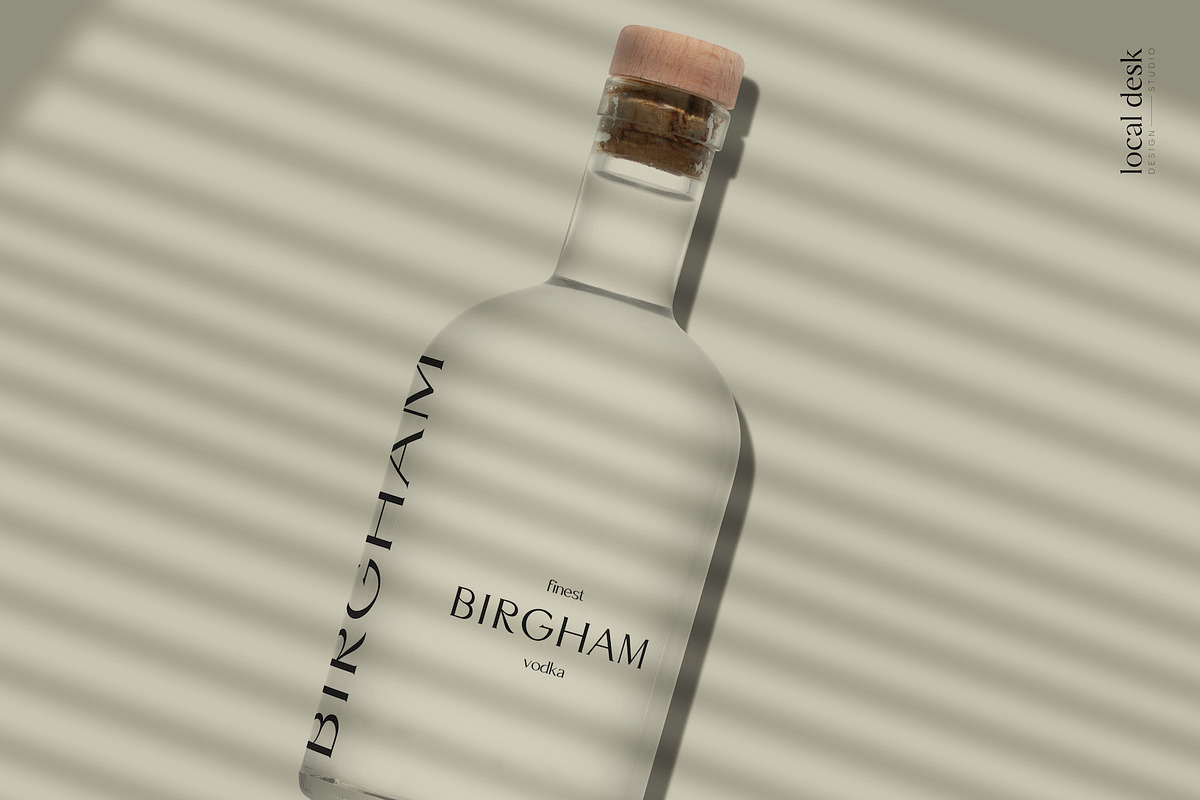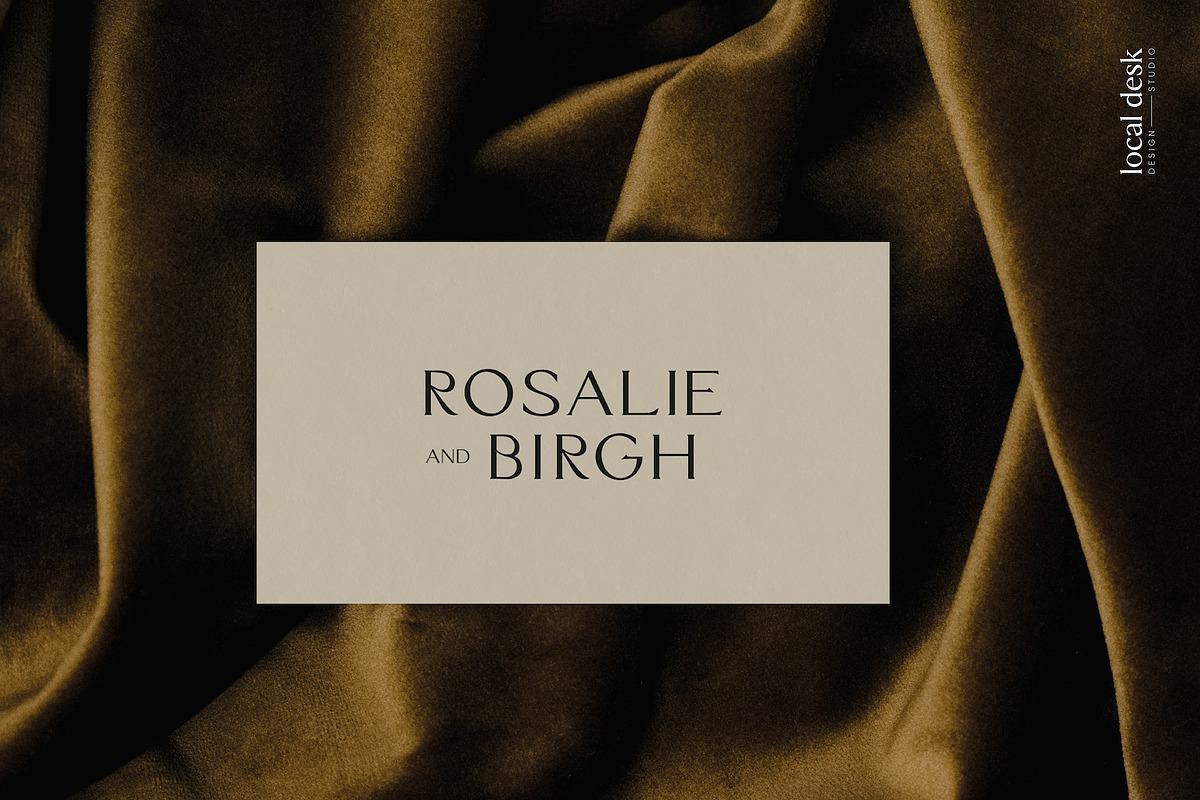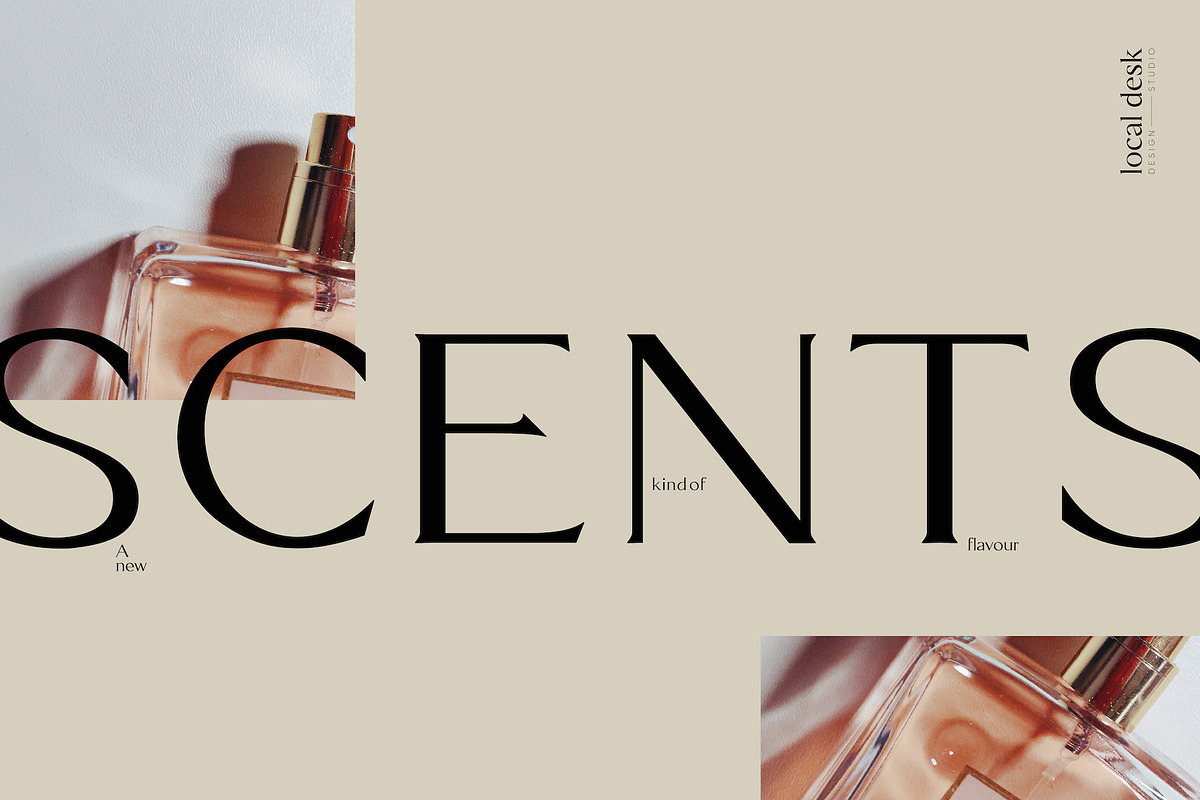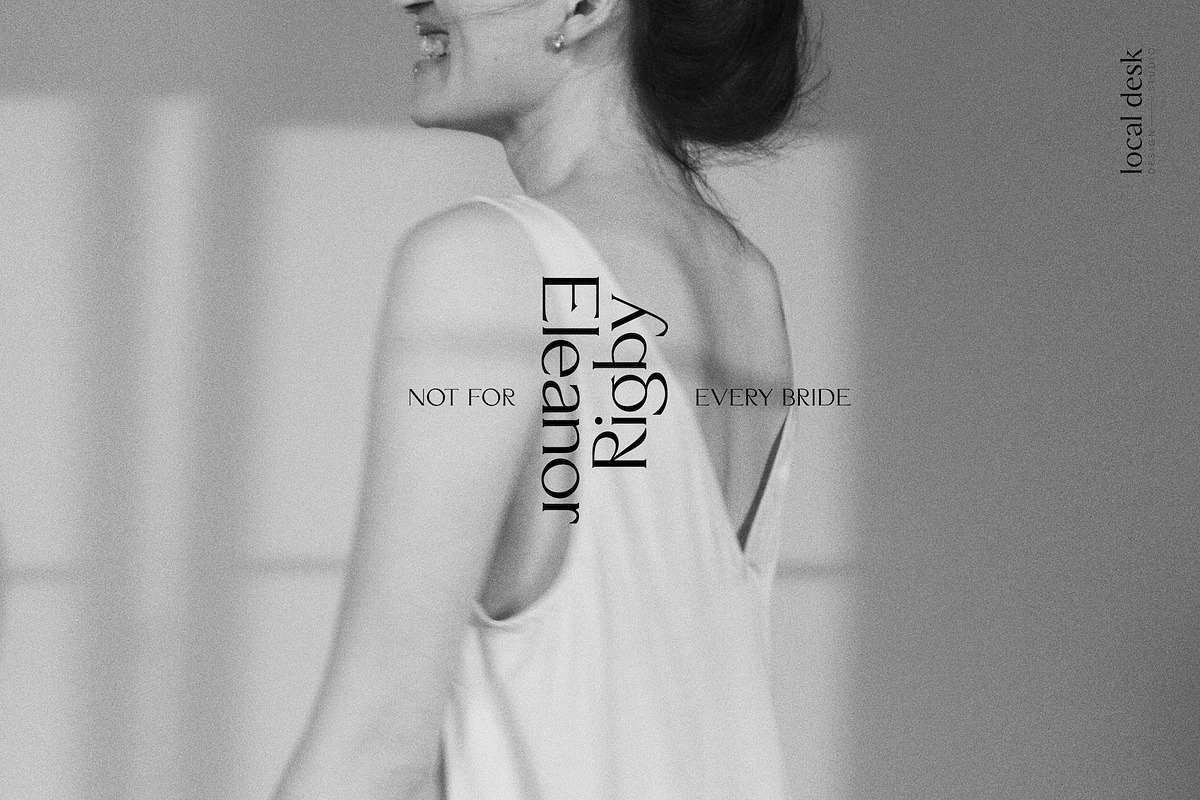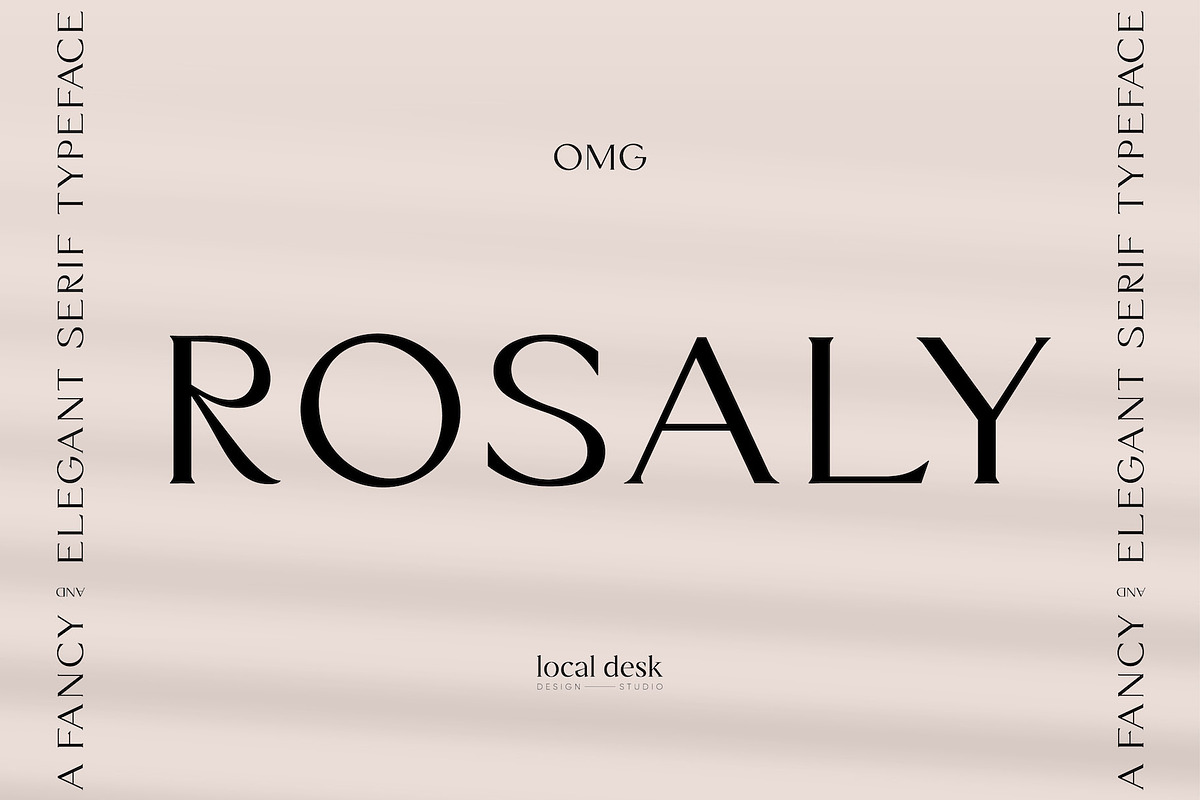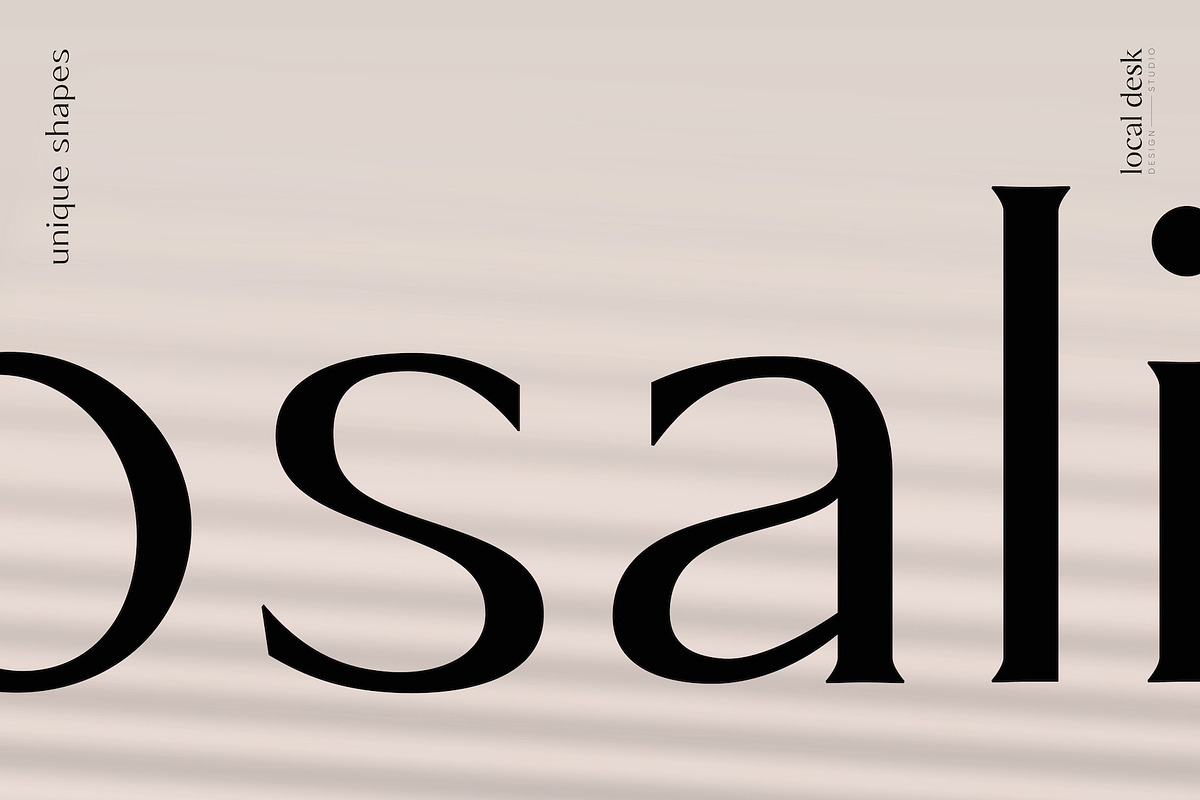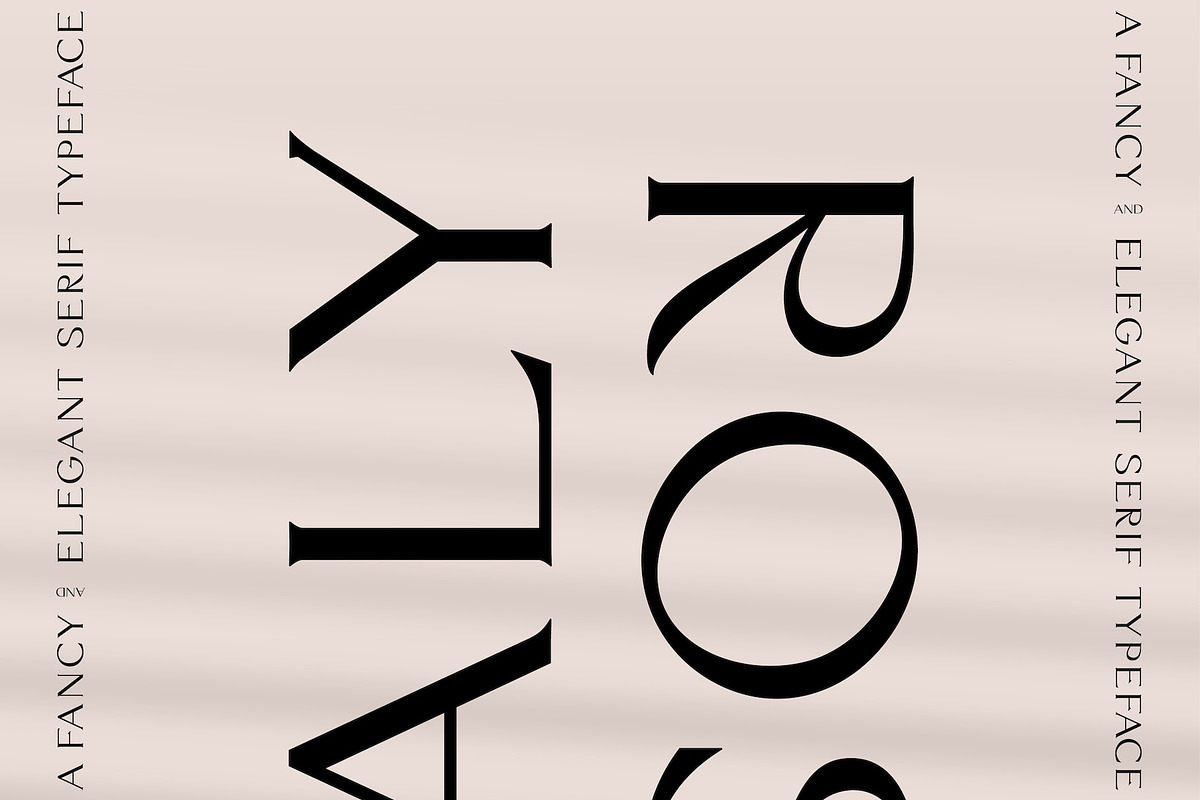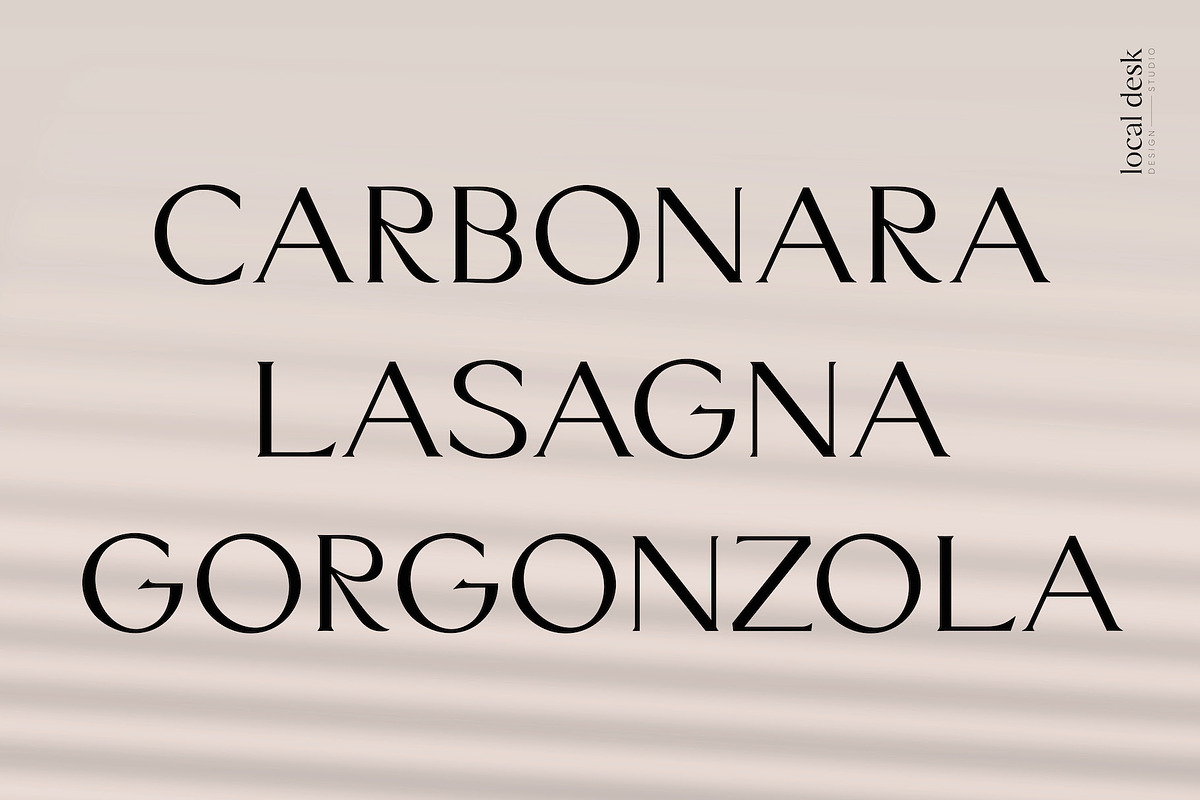
Rosaly – Fancy & Elegant Serif
Rosaly is a distinctive, elegant serif typeface inspired by unusual & organic shapes. Unique curves and contrasting lines create this memorable font with a fancy & luxurious vibe. Rosaly is perfectly suited for designing modern, high end brands, contemporary packaging, unique quotes, timeless websites and so much more!
- Upper- & Lowercase Alphabet
- Numbers + Punctuation